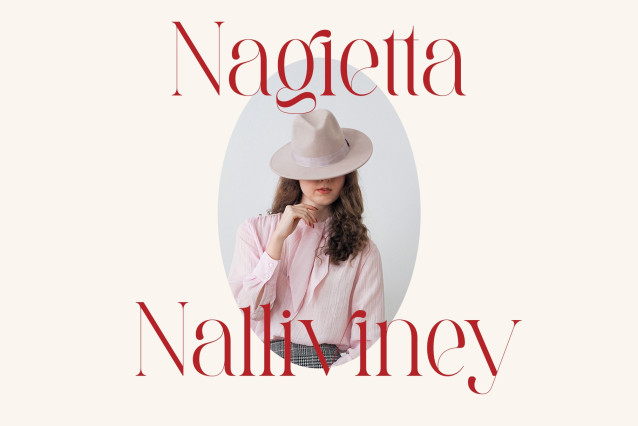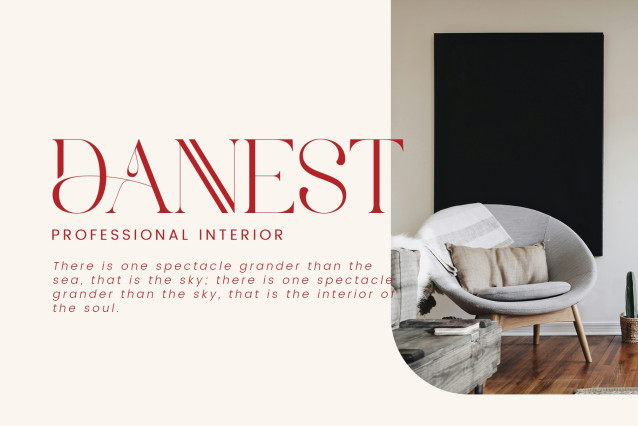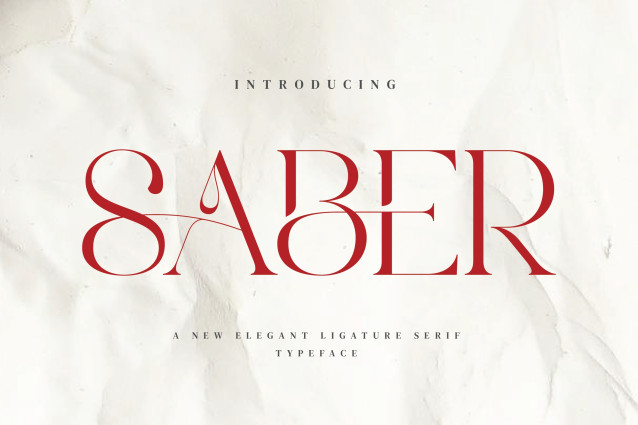
Saber – Elegant Serif Font
Saber Stylish Ligature Typeface, inspired by the famous minimalist logo perfect for the purposes of designing templates, brochures, videos, advertising branding, logos and more.
– Ligatures
– International Accent